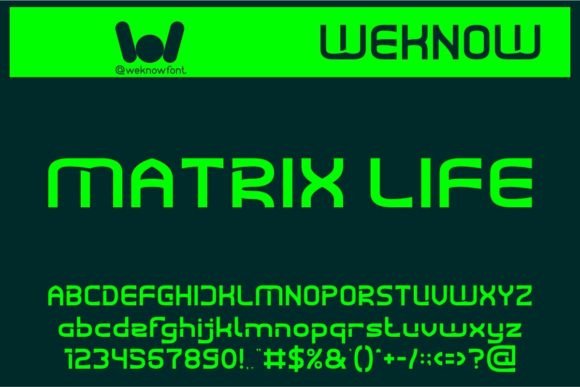
Matrix Life: A Techno-Scifi Display Font with Editorial Soul
It was a quiet Tuesday morning—coffee still warm, layout files open—and I was adjusting the cover treatment for a new digital magazine feature on speculative futures. The article explored AI ethics through narrative nonfiction, blending interviews, data visuals, and short fiction interludes. The tone needed to feel grounded yet forward-looking: human-centered, but unmistakably shaped by technology. That’s when I reached for Matrix Life.
At first glance, Matrix Life reads like a quiet paradox: a display font that doesn’t shout, but hums with intention. It’s not retro-futuristic in the neon-glitch sense—no exaggerated terminals or forced pixelation. Instead, it offers clean, geometric letterforms with subtle techno inflections: slightly tapered stems, restrained angularity in ‘M’, ‘N’, and ‘W’, and a rhythmic consistency that feels both engineered and expressive. The spacing is generous, the x-height moderate, and the contrast between thick and thin strokes is just enough to catch light—not so much that it distracts, but enough to hold attention across screen and print.
A Font That Anchors Mood Without Overwriting Meaning
I tested Matrix Life across several real editorial contexts: a lifestyle blog header (replacing a generic sans serif), chapter openers in a coaching workbook on mindful tech use, pull quotes in a digital zine about climate fiction, and title treatments for printable planner covers themed around “digital sabbaths.” In each case, it performed quietly but decisively—establishing tone without demanding interpretation.
What surprised me most wasn’t its sci-fi lineage, but how well it supported warmth. Because Matrix Life avoids cold sterility—it has softness in its curves, balance in its proportions, and a gentle vertical stress that reads as calm rather than clinical. That makes it unusually versatile for content where humanity and technology intersect: wellness tech guides, indie game studio branding, podcast show notes about algorithmic bias, even wedding guides that lean into “future-forward elegance” (think minimalist invitations with a whisper of circuitry in the typography).
Where It Shines—and Where It Steps Back
Matrix Life is unmistakably a display font. It thrives at sizes 24pt and up—ideal for blog headers, ebook titles, newsletter graphics, magazine covers, and section dividers. Its personality comes alive in isolation or paired with ample whitespace. I used it for a recipe ebook cover titled *Simulated Seasons*, and it gave the project an understated, almost philosophical weight—like the interface of a thoughtful kitchen assistant, not a flashy app.
But it doesn’t pretend to be something it’s not. At small sizes—captions under 12pt, footnotes, dense body copy—it loses clarity. The fine details blur on mobile screens; the rhythm flattens in tight line heights. So I never used it for paragraphs, navigation menus, or long-form captions. And while it works beautifully in PDF exports and high-res print, I avoided it for formal reports or academic handouts where neutrality and tradition matter more than tonal distinction.
Pairing With Purpose
Like any strong display font, Matrix Life gains dimension through thoughtful pairing. For body text in editorial layouts, I consistently paired it with a warm, readable serif—something like Adobe Text or a well-hinted Garamond variant—to ground the techno-poetic energy with typographic familiarity. In digital newsletters, I paired it with a clean, neutral sans serif (Inter or IBM Plex Sans) for subheads and call-to-action lines—creating hierarchy without visual competition.
The key is contrast with cohesion: one voice for presence, another for pace. Matrix Life doesn’t need ornate companions. It pairs especially well with fonts that offer quiet confidence—not flash, not fuss, just reliability. That makes it ideal for independent creators who want brand identity to feel intentional, not overdesigned.
The font family comes in a single weight with no italic variant—but it includes stylistic alternates and ligatures that add nuance without clutter. I used the alternate ‘g’ and ‘a’ in a wedding guide’s chapter titles to soften the geometry ever so slightly. And because it’s delivered in modern OpenType format, it integrates smoothly into Figma, Affinity Publisher, and Adobe apps—with consistent rendering across web, PDF, and print outputs.
A Quiet Confidence in Every Glyph
Typography, at its best, doesn’t draw attention to itself—it draws attention to the idea. Matrix Life does exactly that. It doesn’t scream “futuristic.” It suggests it—calmly, coherently, with space to breathe. Whether you’re designing a course PDF on ethical AI, a printable planner for digital detox, or a limited-run zine about analog resistance, it offers a voice that’s both precise and humane.
In a landscape crowded with loud, trend-driven display fonts, Matrix Life stands out by holding space instead of filling it. It’s not the loudest voice in the room—but it’s the one you remember after the conversation ends.